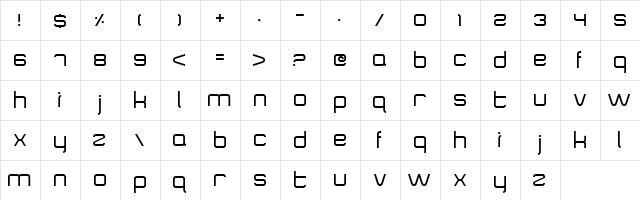
SquareType B Regular
SquareType B offers clean, dependable letterforms without strong stylistic allegiance, making it a practical choice for designers who need flexibility.